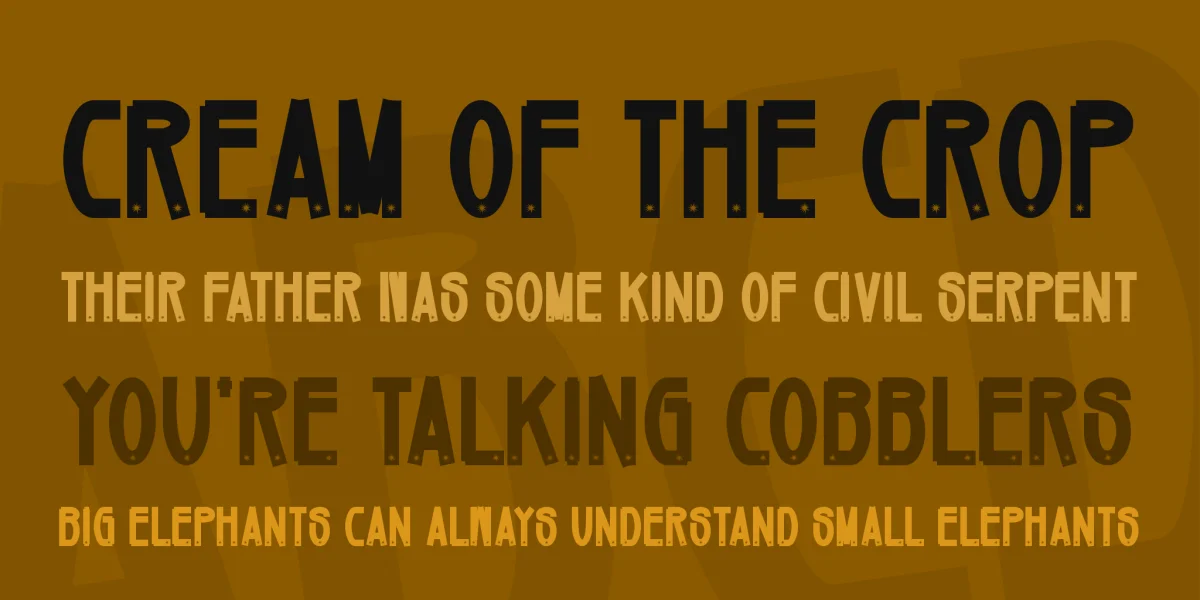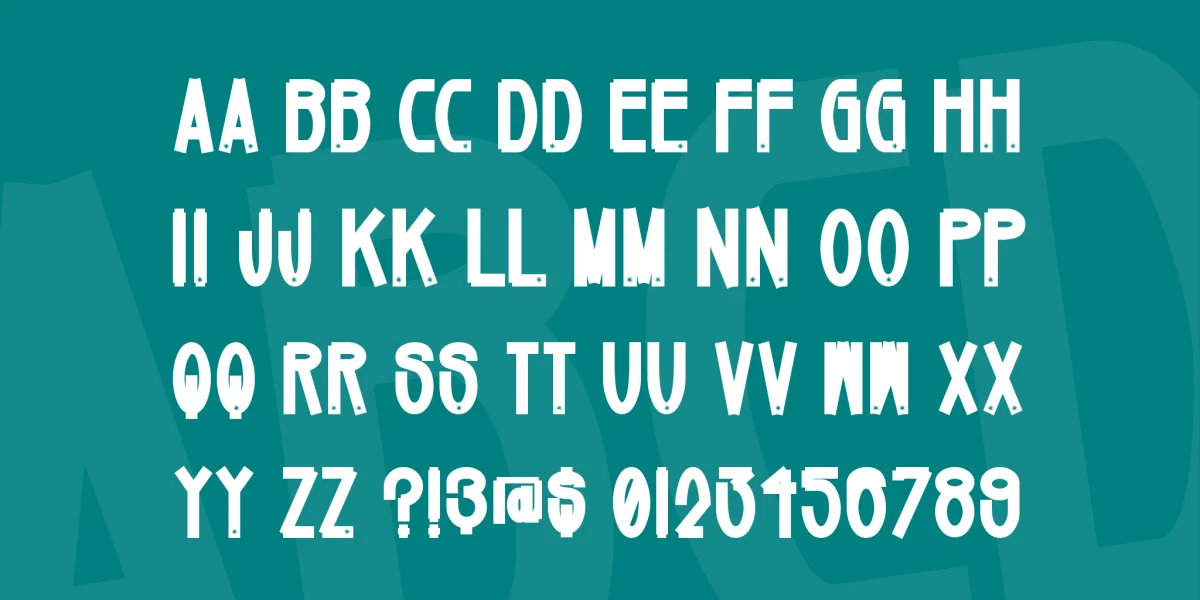
I don't care if people think he is a wimp. . .he probably is. But he does rock the house! And everyone who says, "No. not me," yeah, you, too. You bought a sparkly glove in 1983 and practiced moonwalking. So there. This font doesn't look like MJ, but the lower case alphabet sparkles. I'm trying really hard not to put a song title cliche in here, so I'll stop while I'm ahead.